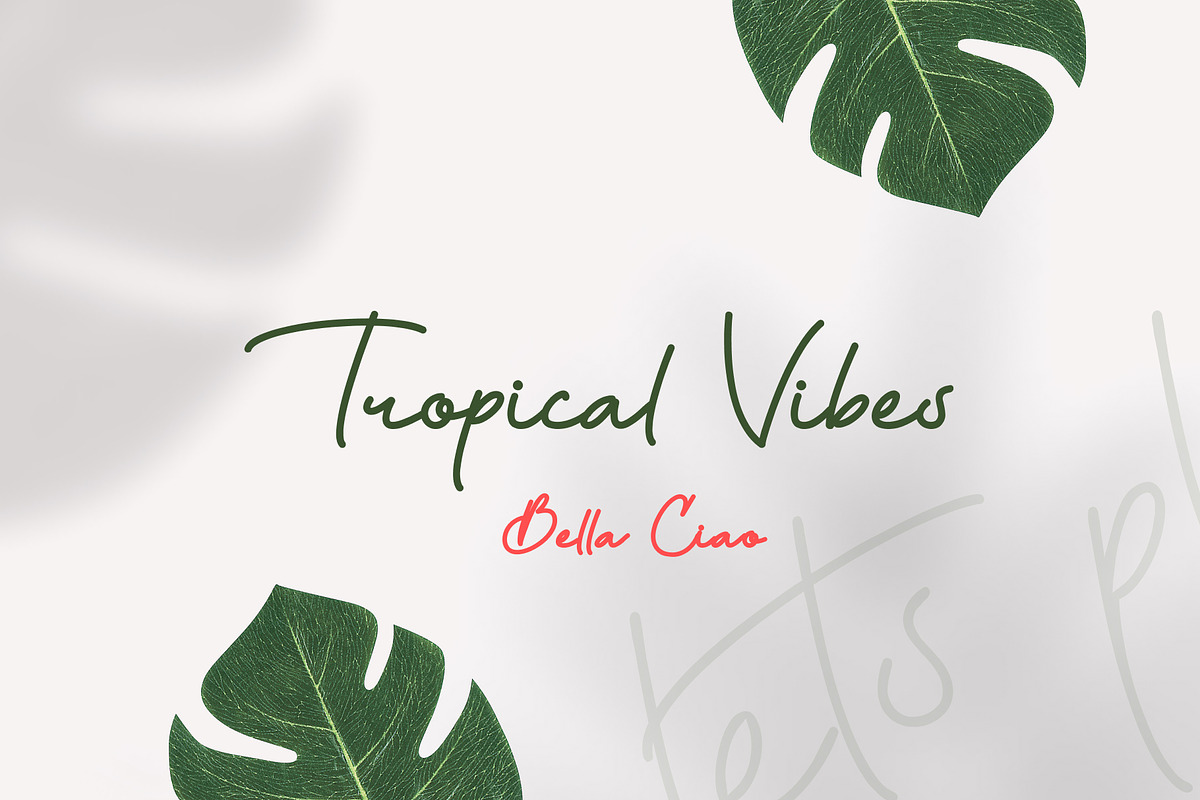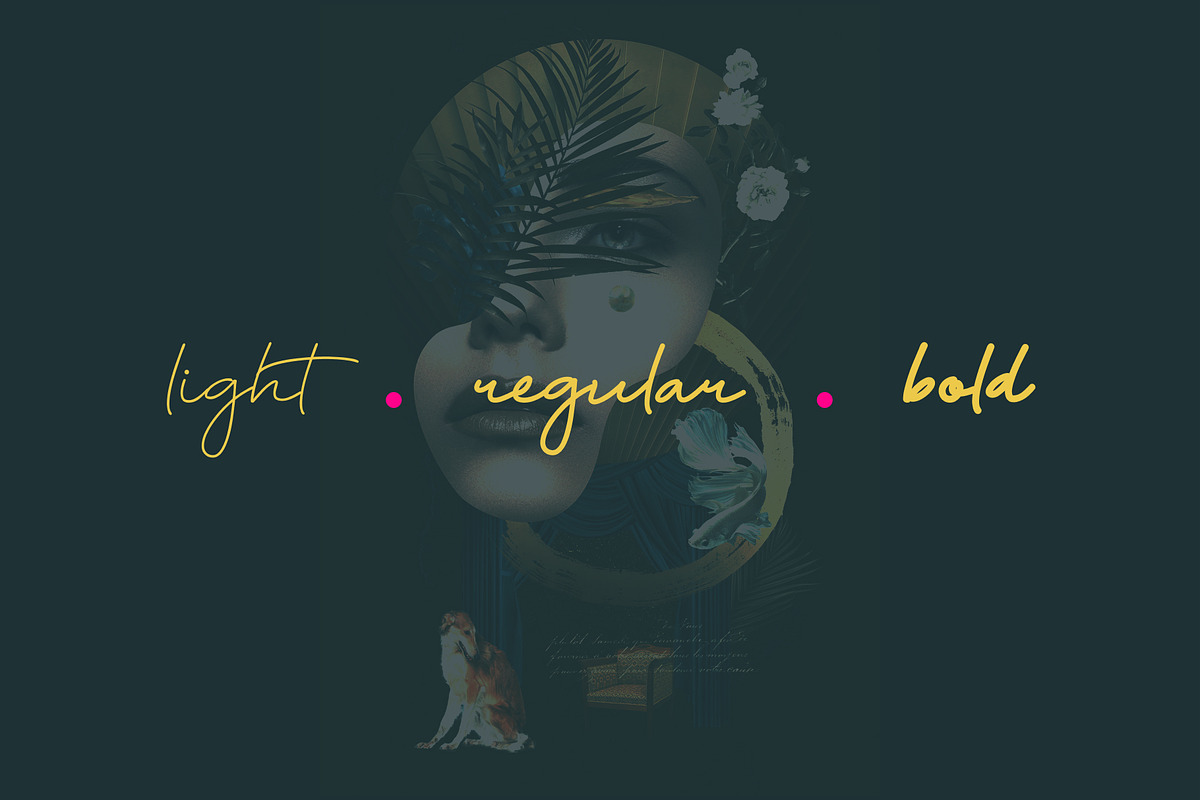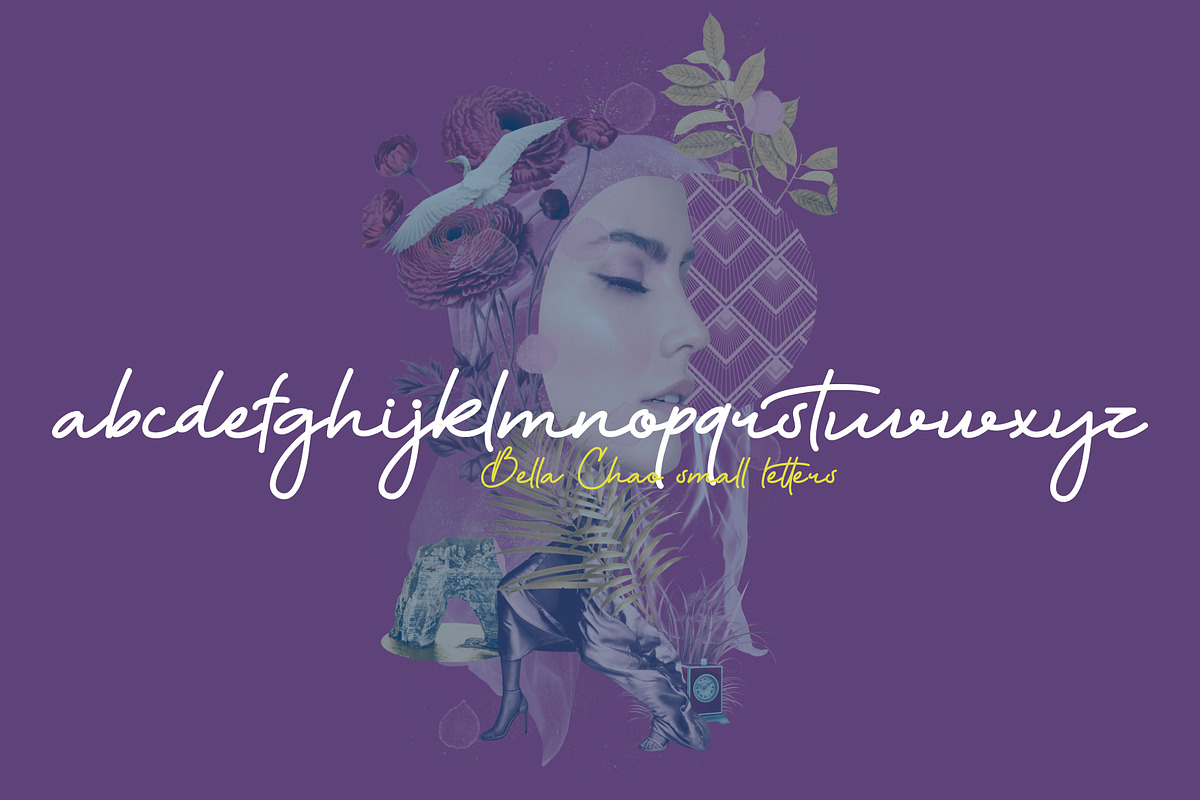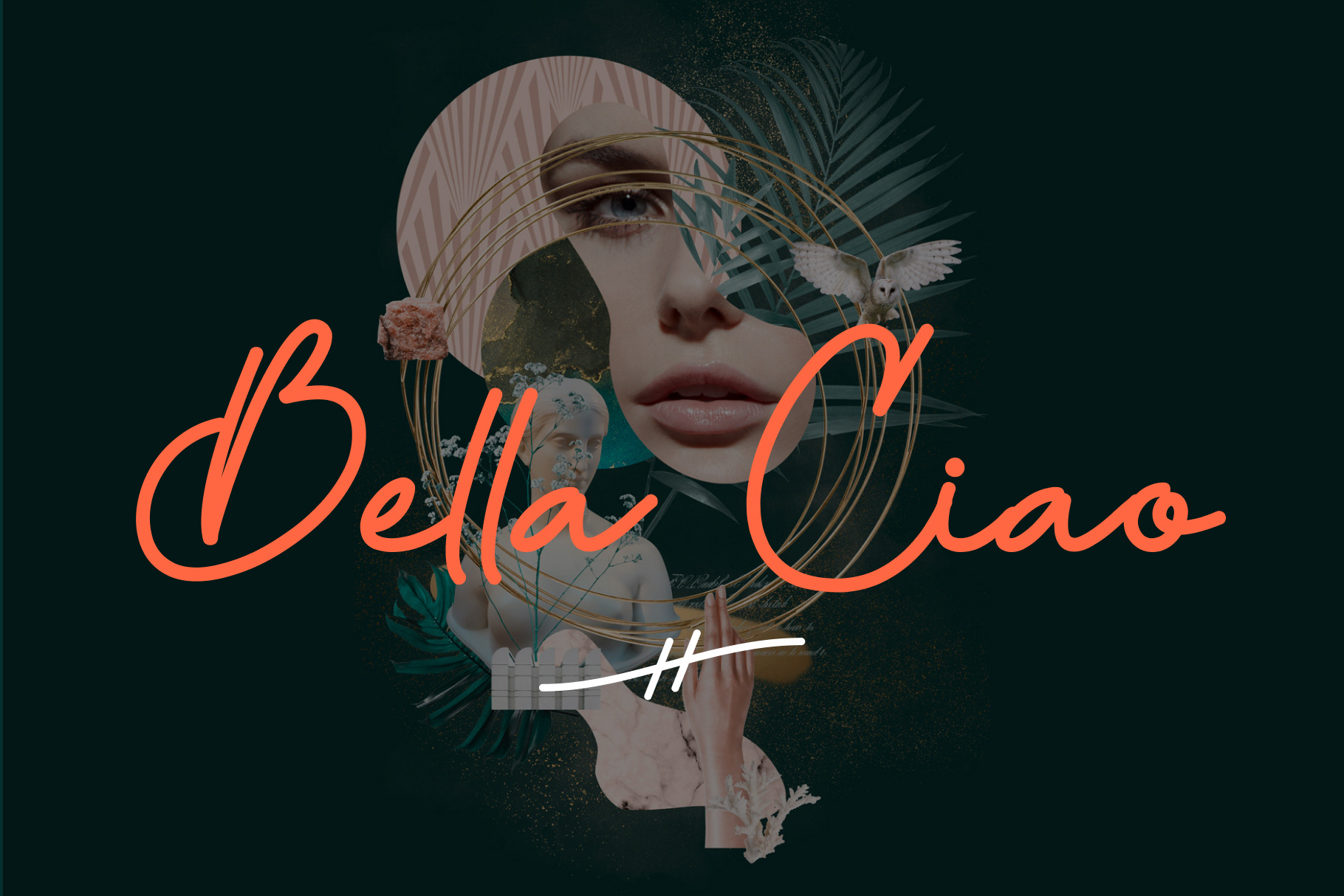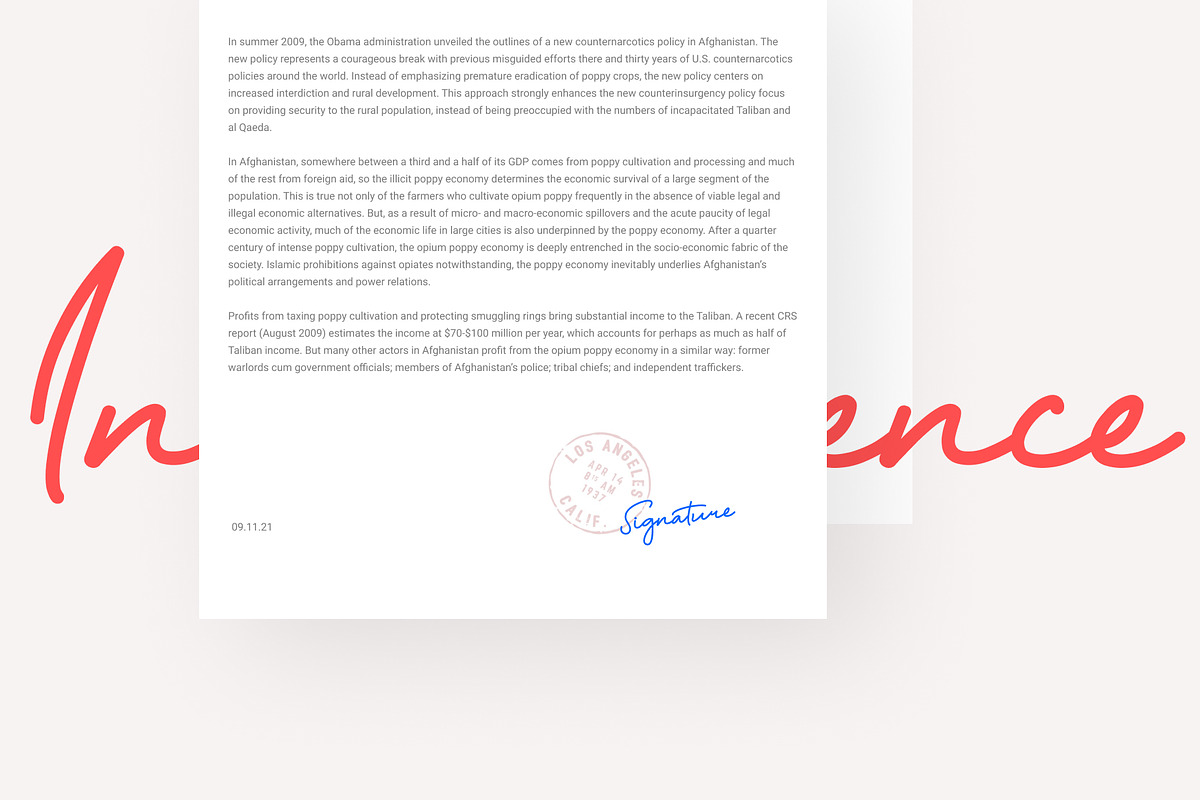
Bella Ciao handwritten font
Bella Ciao is an elegant handwritten font. The authentic font is suitable for signatures, posters packages and branding. Letters are simple and modern. The font includes 3 styles: light, regular and bold.